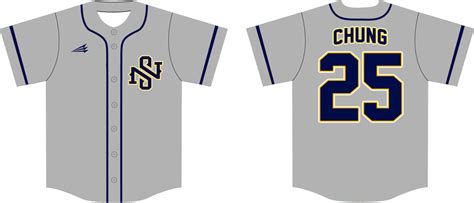
Create Custom Baseball Jerseys With Free Font Generators
Hey guys! Ever wanted to design your own baseball jersey? Maybe for a team, a special event, or just because you think it’d be super cool? Well, you’re in the right place! We’re diving headfirst into the world of baseball jersey font generators , and the best part? Many of them are completely free ! This means you can design professional-looking jerseys without breaking the bank. Let’s explore how to use these fantastic tools, the types of fonts you can expect to find, and how to make your jersey design stand out from the crowd. Ready to knock it out of the park? Let’s go!
Understanding Baseball Jersey Font Generators
So, what exactly is a baseball jersey font generator? Think of it as your digital design assistant. These online tools allow you to create custom text for your jerseys, letting you choose from a variety of fonts, colors, and styles. You can input your team name, player names, numbers, and even add additional text to personalize your design. The generator then displays a preview of your jersey, giving you a good idea of how your design will look when it’s printed. These tools are incredibly user-friendly, even if you’re not a professional designer. Most generators offer drag-and-drop interfaces, easy-to-use color pickers, and a library of pre-designed fonts specifically for baseball jerseys. You can adjust the font size, spacing, and even add curved text for that classic baseball look. This is especially awesome because, with the help of these tools, anyone can design a jersey that is ready to be printed and worn. You are not going to need to know how to use any complicated software such as Adobe Photoshop or Illustrator. The tools will take care of everything for you!
Using a baseball jersey font generator means you have complete control over the creative process. You get to decide every aspect of the design, from the font style and color to the placement of the text on the jersey. This level of customization is perfect if you want to create a unique jersey that represents your team’s identity or your personal style. You can experiment with different font combinations, colors, and layouts until you find the perfect design. Furthermore, free online generators are a cost-effective solution for anyone looking to create personalized jerseys. They eliminate the need to hire a professional designer or invest in expensive design software. All you need is an internet connection and a little bit of creativity. Many generators offer a wide range of font options, including classic baseball fonts like block letters and script fonts. Some also offer pre-designed templates that you can customize to save time. So, with these tools, the options are really limitless. You can really get any style you want, without needing any prior design experience. It’s really the perfect tool for beginners and experienced designers.
Benefits of Using Free Generators
There are tons of benefits to using a free baseball jersey font generator. The most obvious is the cost. It’s hard to beat free! You don’t have to worry about subscription fees or hidden charges. This makes them perfect for individuals, small teams, or anyone on a budget. These tools also tend to be incredibly easy to use. Most of them have user-friendly interfaces with simple drag-and-drop features. You don’t need to be a design expert to create a professional-looking jersey. Another major benefit is the convenience. You can access these generators from anywhere with an internet connection, making it easy to design your jersey on the go. Whether you’re at home, at work, or on the road, you can work on your design whenever you have a few free minutes. Free generators are also a great way to experiment with different design ideas without any risk. You can try out different fonts, colors, and layouts until you find the perfect look.
Another huge benefit of these generators is the speed. You can create your jersey design in minutes, saving you time and effort compared to other design methods. Many free generators also offer a variety of features, such as the ability to save your design, share it with others, and download it in various formats. This makes it easy to collaborate with your teammates, get feedback on your design, and prepare your design for printing. And as a final note, many generators are compatible with different printing services, so you can easily send your design to a printer of your choice. This is useful because it removes all of the headaches involved in actually getting a physical jersey made! Overall, the benefits are numerous and make these tools an invaluable resource for baseball jersey design.
Key Features to Look for in a Baseball Jersey Font Generator
When choosing a baseball jersey font generator , there are several key features to keep an eye out for. These features can make a huge difference in your design experience and the final look of your jersey. First and foremost, you’ll want a wide selection of fonts. Look for a generator that offers a variety of fonts, including classic baseball fonts like block letters, script fonts, and other unique styles. The more font options available, the more creative freedom you’ll have to design your jersey. Ideally, the tool should include bold and italic fonts to make your jersey text stand out. Then, consider color options. A good generator should provide a comprehensive color palette, allowing you to choose from a wide range of colors for your text. Some generators also allow you to create custom colors, which is perfect if you want to match your team’s existing colors. The best generators also offer text customization options. Make sure the generator lets you adjust the font size, spacing, and alignment. The ability to curve text is also a valuable feature, as it’s a popular design element in baseball jerseys.
Another important aspect is ease of use. The generator should have a user-friendly interface that is easy to navigate, even for beginners. Drag-and-drop functionality and clear instructions are a plus. Moreover, the generator should offer preview options. Look for a generator that lets you preview your jersey design in real-time, so you can see how your text will look on the jersey before you finalize your design. The ability to save your design is also crucial. Ensure the generator allows you to save your design so you can make changes later or share it with others. The generator should also offer different download options. A good generator will allow you to download your design in various formats, such as PNG, JPEG, or vector files, so you can easily send it to a printer.
Advanced Features to Consider
If you’re looking for even more advanced features, there are a few extras that can take your jersey design to the next level. Some generators offer the ability to add logos and graphics to your jersey. This can be great for adding your team’s logo, a sponsor’s logo, or any other graphic element that you want to include in your design. Consider the customization of jersey styles. Some generators allow you to choose different jersey styles, such as button-down jerseys, pullover jerseys, and even different sleeve lengths. This can help you create a jersey that matches your team’s style. Another feature to consider is the ability to create multiple designs. Some generators allow you to create different versions of your jersey design, which is useful if you want to experiment with different styles or if you need to create jerseys for multiple players.
Also, consider the integration with printing services. Some generators have direct integration with printing services, making it easy to order your jerseys directly from the generator. This can save you time and effort and ensure that your design is printed correctly. The last thing to consider is the support and tutorials provided. A good generator should offer clear instructions, tutorials, and customer support to help you through the design process.
Let’s get down to the fun part: fonts! Choosing the right font is essential for creating a visually appealing baseball jersey. Here are some of the most popular font styles you’ll find in baseball jersey font generators .
Conclusion: Your Home Run Design Awaits!
So there you have it, guys! Everything you need to get started with baseball jersey font generators . These tools are super accessible and let you unleash your creativity without spending a fortune. Whether you’re designing for a team, a special event, or just for fun, these free generators are your ticket to a custom jersey that’s sure to turn heads. Now, go out there, experiment with different fonts and designs, and create a jersey that’s as unique as you are. Remember to have fun with the process and don’t be afraid to try something new. Happy designing, and good luck! You got this! We’re confident that you’ll be able to create an awesome jersey.